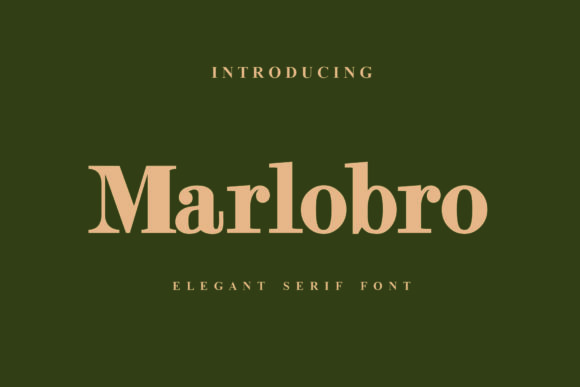
Introducing Marlobro Font, the ultimate choice for adding a touch of elegance and sophistication to your designs! This modern serif font, created by The1stWinner, seamlessly blends contemporary style with classic elements, making it perfect for a wide range of creative projects.
With its timeless appeal, Marlobro Font is an ideal choice for enhancing your branding efforts. Whether you're looking to create a stunning logo, captivating product packaging, or eye-catching labels, this font will effortlessly elevate your brand image. Its sleek and refined design exudes professionalism and ensures that your message will stand out from the crowd.
Are you in need of an attention-grabbing invitation or a memorable quote? Look no further! Marlobro Font's unique character and exquisite details will add a touch of charm to any project. Its versatility shines through in its ability to enhance a variety of designs, from elegant wedding invitations to impactful social media posts.
Embrace your creativity and let Marlobro Font be the driving force behind your artistic vision. Whether you're designing a trendy t-shirt or a captivating poster, this font will infuse your creations with a sense of style and individuality. The possibilities are endless, and the results are guaranteed to impress.
But it doesn't stop there! Marlobro Font's seamless legibility makes it the perfect choice for small text. With its carefully crafted letterforms, every word will be crystal clear, ensuring that your message is delivered effortlessly. Say goodbye to readability issues and hello to a font that truly understands the importance of clear communication.